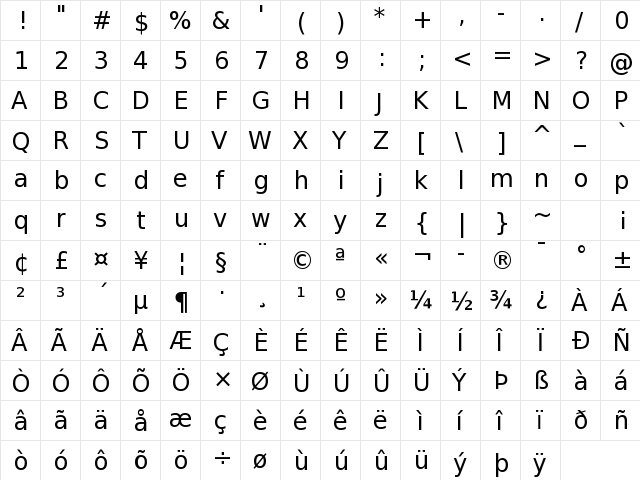
Bepa Roman
| Foundry | Danilo Segan |
Design Context for Bepa Typeface
Bepa is a composed and adaptable typeface that performs quietly and consistently across a wide range of design contexts.